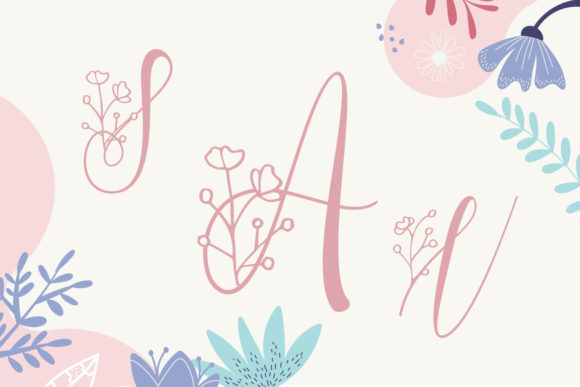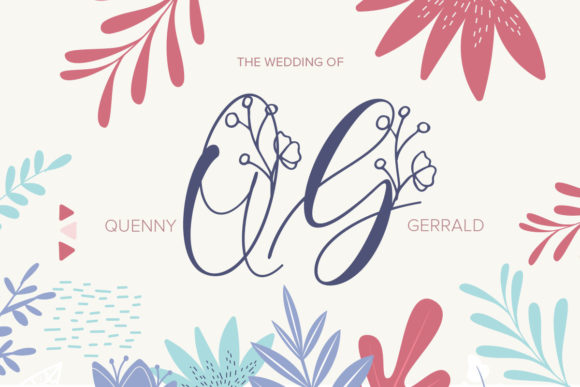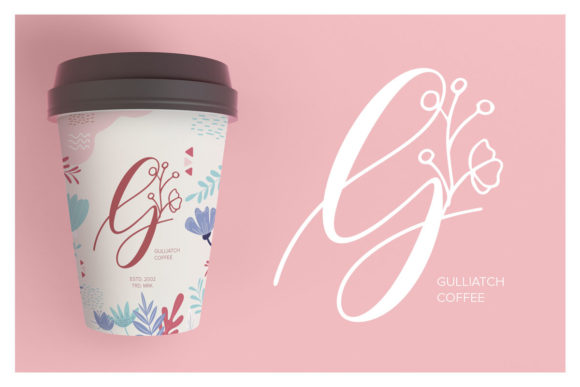
Introduction to Laurence Monogram Font
Have you ever been working on a creative project and stumbled upon the perfect font that elevates your design to the next level? That’s exactly what happened to many designers when they discovered the charming Laurence Monogram Font. Its whimsical feel and delicate flower ornament make it a dream come true for those seeking a high-quality design resource.
Whether you’re crafting beautiful wedding invitations, designing stunning social media posts, or creating adorable greeting cards, Laurence Monogram Font is an excellent choice. Its transparent background allows for seamless integration with any design, making it an ideal tool for designers looking for a versatile and free download.
As a valuable design resource, Laurence Monogram Font offers endless possibilities for creative expression. Its authentic feel and lovely flower ornament make it a must-have for designers seeking to add a touch of elegance and sophistication to their projects.
Key Features of Laurence Monogram Font
- High-quality vector design, perfect for creative projects and professional use
- Designed to be highly legible, even at large sizes, making it ideal for use in various design contexts
- Includes a comprehensive character set, including uppercase and lowercase letters, numbers, and punctuation
Honest Review: Laurence Monogram Font
I recently had the chance to work with the Laurence Monogram Font, and I must say, I was impressed with its high quality. The font is a beautiful addition to any creative project, and I loved how it added a touch of elegance to my designs.
- High-quality design: The Laurence Monogram Font has a crisp, clean aesthetic that looks great in a variety of contexts.
- Limited font styles: While the Laurence Monogram Font is beautiful, it’s a relatively simple font with limited styles and variations.
- No bold or italic options: If you need to emphasize text or create a bold heading, you may need to look elsewhere.
Overall, I’m impressed with the Laurence Monogram Font. While it may not offer a ton of options, it’s a great addition to any designer’s toolkit, especially for those who are looking for a high-quality, free download.
Tips for Getting the Most Out of Laurence Monogram Font
Experiment with different font sizes and colors to create a visually appealing design. Use the font in conjunction with other design resources to create a cohesive and creative project. Take advantage of the font’s high quality and transparency to create a professional-looking design.
The Laurence Monogram Font is perfect for creating custom logos, business cards, and other marketing materials. It’s also great for designing wedding invitations, party decorations, and other creative projects. With its high quality and versatility, the Laurence Monogram Font is a valuable design resource for any creative project.